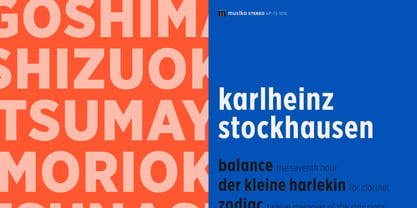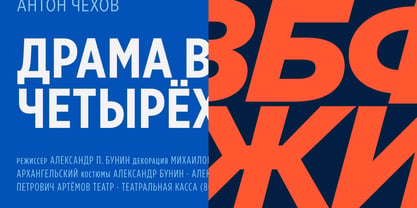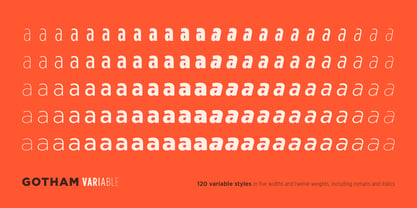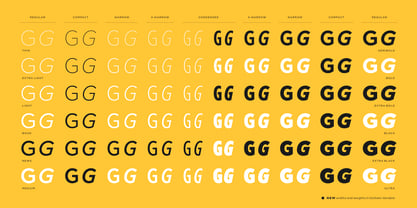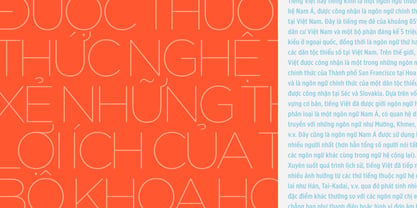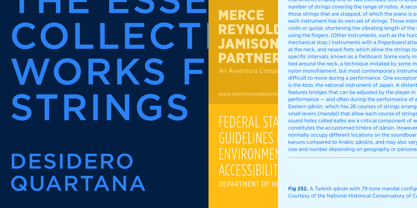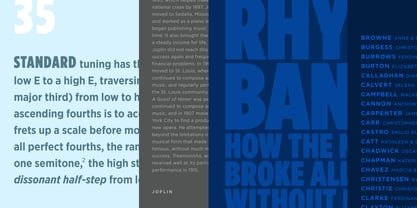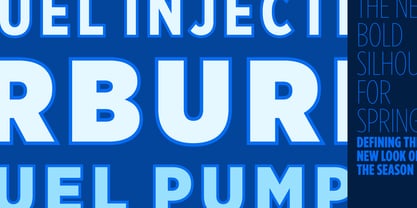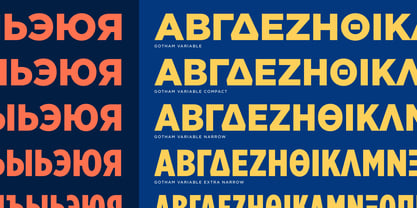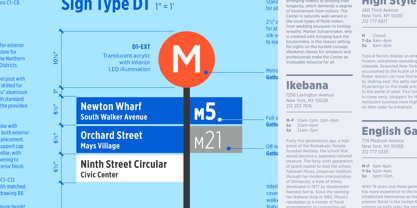
Gotham® Variable
by Hoefler & Co.
The Gotham Variable Font Family was designed by Sara Soskolne and the Monotype Studio, based on Gotham by Jonathan Hoefler and Tobias Frere-Jones and published by Hoefler & Co.. Gotham Variable contains 2 styles and family package options. More about this family
Every designer has admired the no-nonsense lettering of the American vernacular, those letters of paint, plaster, neon, glass, and steel that figure so prominently in the urban landscape. From these humble beginnings came Gotham, a hard-working typeface for the ages.
The Gotham typeface was designed by Jonathan Hoefler and Tobias Frere-Jones in 2000. A sans serif that shares many attributes of typography’s “geometric” genus, Gotham was inspired by a style of bold capital letters that evolved outside the typographic tradition in the early twentieth century, common to lithographed posters, enamel signs, and commercial facades throughout New York City. First appearing in the pages of GQ in 2001, Gotham gained international attention in 2007 when it was adopted by the presidential campaign of Barack Obama. One of the most popular and influential typefaces of our time, Gotham is in the permanent collection of the Museum of Modern Art in New York.
Gotham celebrates the attractive and unassuming lettering of the city. New York is teeming with such letters, handmade sans serifs that share a common underlying structure, an engineer’s idea of “basic lettering” that transcends both the characteristics of their materials and the mannerisms of their makers. These are the cast bronze numbers that give office doorways their authority, and the markings on cornerstones whose neutral and equable style defies the passage of time. They are the matter-of-fact neon signs that identify shops and services, and the names of proprietors plainly painted on delivery trucks. These letters are straightforward and non-negotiable, yet possessed of great personality, and often expertly made. Designers have lived with them for more than half a century, yet they went largely unrevived until the introduction of Gotham.
Gotham is that rarest of designs, the new typeface that feels somehow familiar. From the lettering that inspired it, Gotham inherits an honest tone that is assertive but never imposing, friendly but never folksy, confident but never aloof. The inclusion of elements that extend beyond its sources, including a lowercase, italics, and a broad expressive range, brings a welcome sophistication to these plainspoken forms, allowing Gotham to speak in many voices while remaining unmistakably itself.
Since its conception, Gotham has become a foundation for contemporary design. It has been used by global brands, cultural institutions, publications, and public voices, wherever clarity and consistency are required. Its adaptability has allowed it to move easily between print and screen, between identity and interface, and across an expanding range of languages and audiences.
25 years of Gotham.
Gotham continued to evolve as it marked its twenty-fifth anniversary. With the introduction of Gotham Variable, its familiar forms acquired a new flexibility along with subtle new shades of weight and width, offering a continuous range of expression while preserving the clarity and confidence that define the design; and expanded language support, including Vietnamese and enhanced Cyrillic, extended its reach to more of the world. What began as a study of the city’s lettering has become a powerful typographic system that continues to grow with the needs of modern design.
Gotham was designed by Jonathan Hoefler and Tobias Frere-Jones, with contributions by Jesse Ragan and Sara Soskolne. Additional material by Kevin Dresser, Wendy Ellerton, Malou Verlomme, Jordan Bell, Fernando Mello; Ksenya Samarskaya, Aoife Mooney, Erin McLaughlin, Andy Clymer, Colin M. Ford, Daniel Weiand, Petra Rüth and the Monotype Studio.